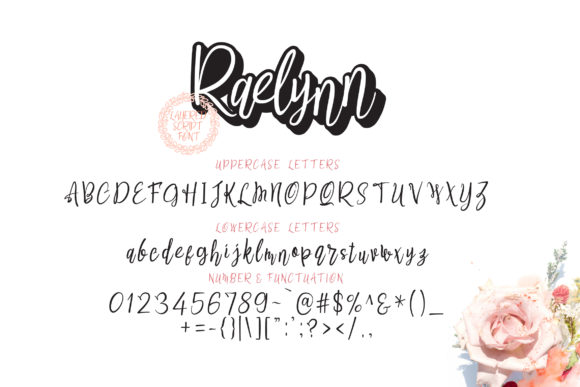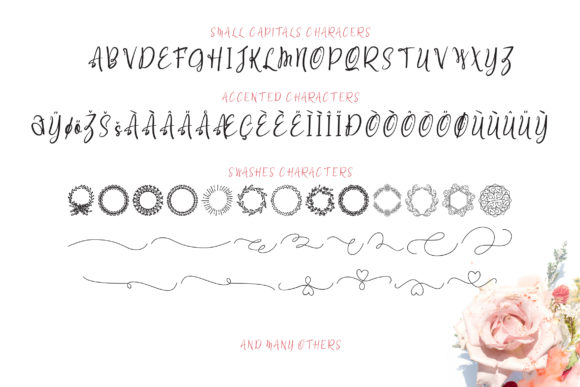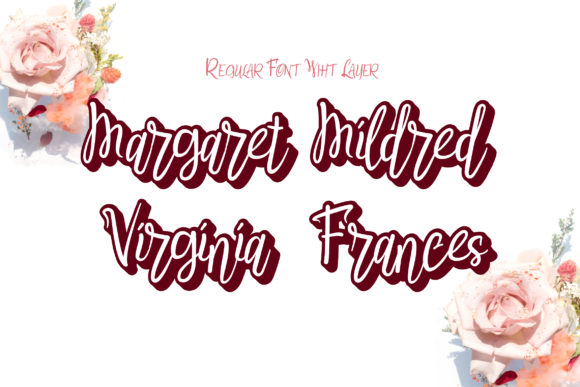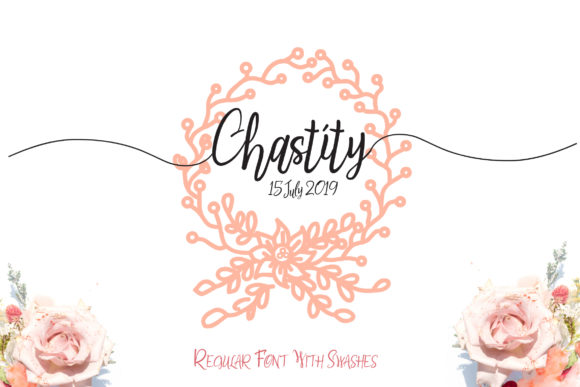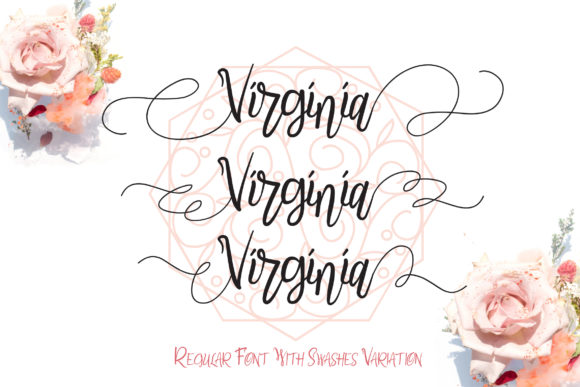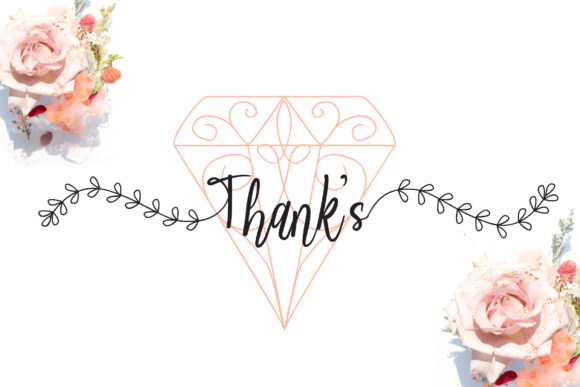
Raelynn Font
About Raelynn Font
Raelynn is an incredibly cute and charming handwritten font with a bold feel. Get inspired by its whimsical look and elegant swashes!